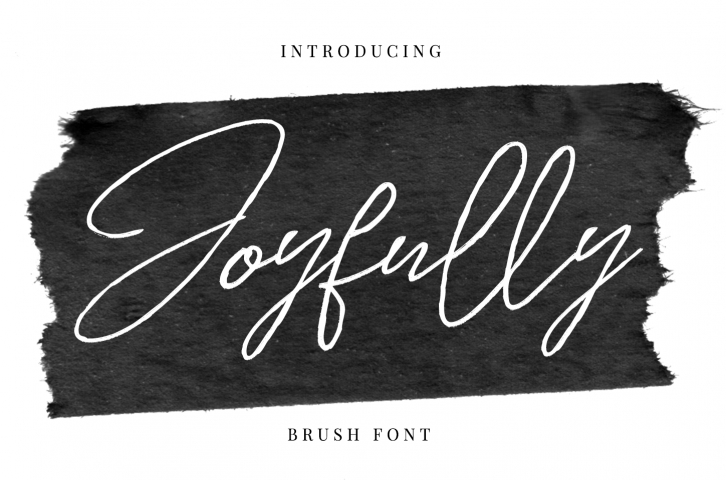
Joyfully is a great font that was designed by Jine Cameo. Imagine the amount of combinations you can create using this font! The archive is 17.28 MB and it was released on December 2, 2019. Joyfully looks beautiful on wedding invitations, greeting cards, logos, posters, labels, t-shirt designs, logos, business cards and is perfect for use in ink or watercolor works, fashion, magazines, packaging and food menus, children's books and more!